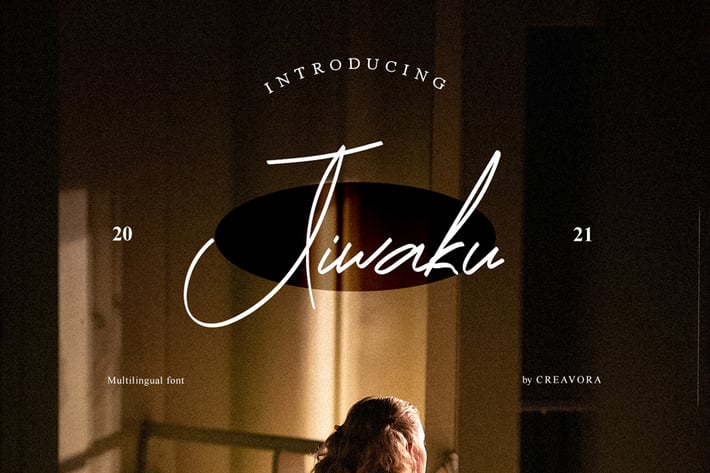
Jiwaku - Signature Script Font
Introducing Jiwaku Signature Font
Jiwaku is a gorgeously light and charming signature script, perfect for branding projects, logos, wedding designs, and much more!